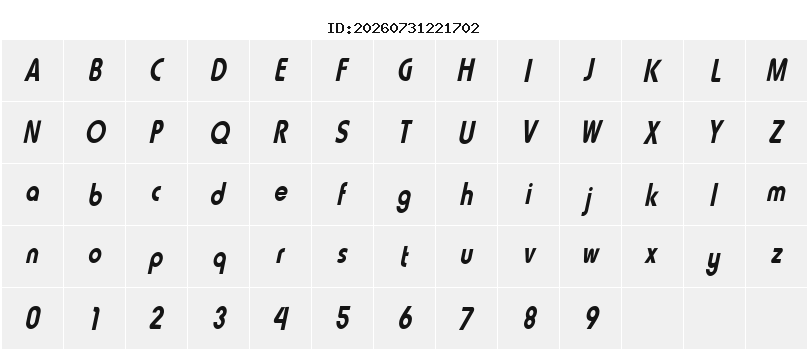
Lauren-Condensed Normal Preview
• Font Name: Lauren-Condensed Normal
• Full Font Name: Lauren-Condensed Normal Italic
• PostScript Name: Lauren-CondensedNormal-Italic
About Lauren-Condensed Normal.ttf
Lauren-Condensed Normal.ttf is a modern, elegant sans-serif font designed for ultimate readability and visual harmony. Perfect for branding, headlines, web design, and print materials.